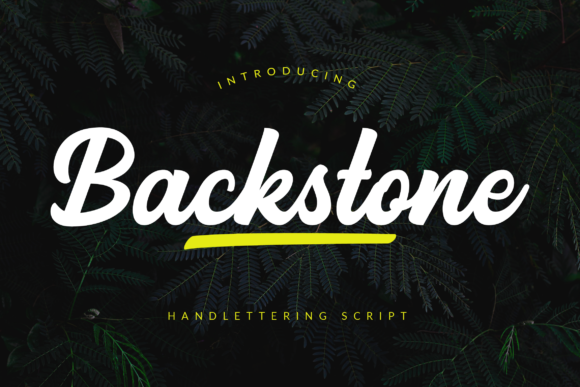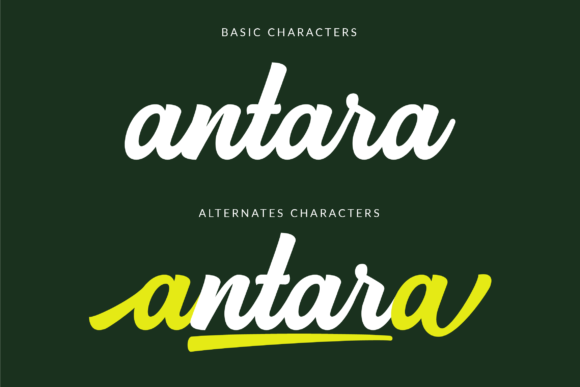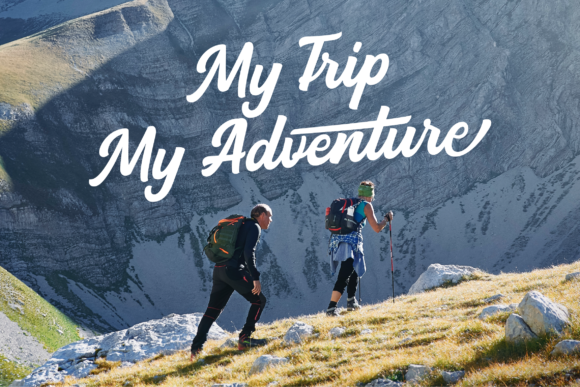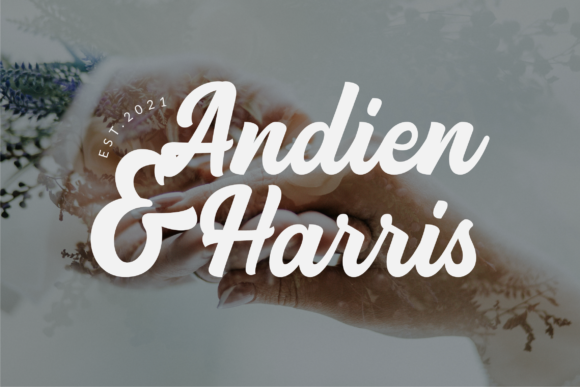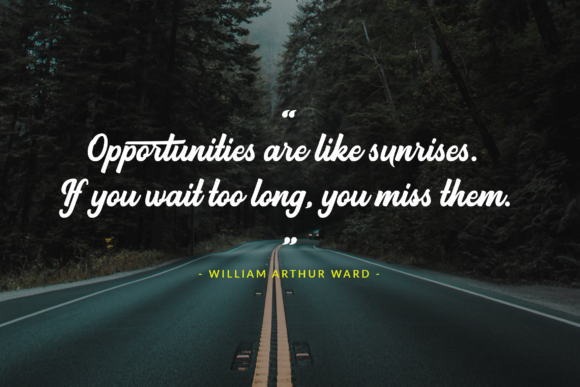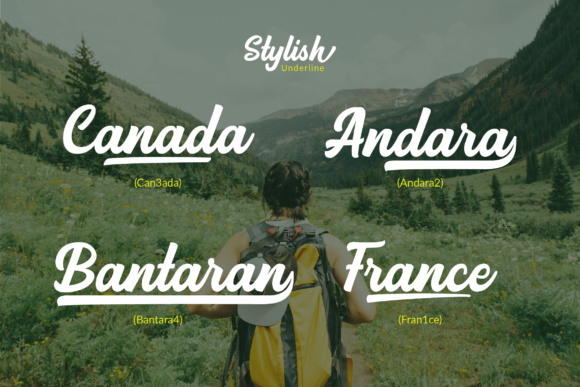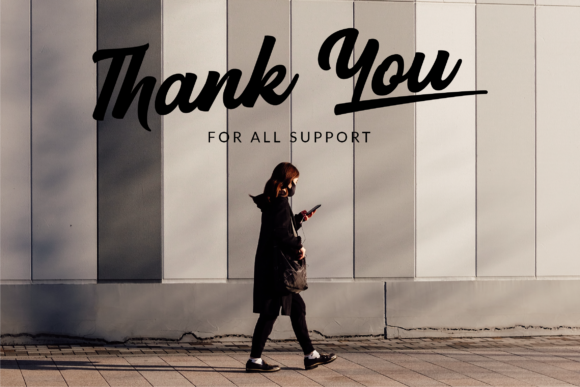
Backstone Font
About Backstone Font
Backstone is a daring and bold handwritten font that is crafted with brush pen strokes, adding a unique and dynamic touch to your designs. With its distinct and expressive letterforms, this font is designed to beautify and emphasize your design projects.
The bold and confident nature of Backstone makes it a perfect choice for creating impactful and eye-catching designs. Whether you’re designing posters, headlines, logos, or any other project that requires a strong visual presence, Backstone will grab attention and make a statement.
The brush pen strokes used in creating Backstone give the font a raw and organic feel, adding a touch of authenticity and handmade charm to your designs. The bold and expressive letterforms are filled with energy and personality, creating a visually striking result.
Backstone is particularly effective when used to emphasize important elements or to create a focal point in your designs. Its bold strokes command attention and draw the viewer’s eye to the intended message or content. Whether you’re highlighting a key phrase, a headline, or a call-to-action, Backstone will ensure that it stands out.
The versatility of Backstone allows it to be used in a wide range of design projects. From branding and packaging to social media graphics and website headers, this font adds a touch of boldness and character to your visual communication. Its expressive and organic nature also makes it a great choice for projects that aim to convey a sense of authenticity or a handmade aesthetic.
To sum it up, Backstone is a daring and bold handwritten font that adds a unique and dynamic touch to your designs. Its brush pen strokes and bold letterforms create an impactful and eye-catching result. Whether you’re designing posters, logos, or any other project that requires a strong visual presence, Backstone will beautify and emphasize your design with its raw and organic charm.